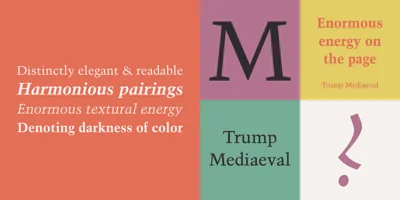
Trump Mediaeval LT Font
Please note, you must purchase this font for commercial use. You can download Trump Mediaeval LT Font for testing purposes and explore its elegant, traditional design. Trump Mediaeval LT Font is perfect for projects that require a historical or classical look, such as branding, book covers, invitations, and any design that needs a sophisticated, timeless appeal.
With its refined serifs and classical proportions, Trump Mediaeval LT Font adds an air of tradition and professionalism to your designs. It's ideal for long-form text, editorial projects, and formal invitations, providing a sense of elegance and readability.
Trump Mediaeval LT Font supports multilingual characters, making it suitable for global projects. Its clear, legible design ensures readability across both digital and print formats, making it versatile for various applications.